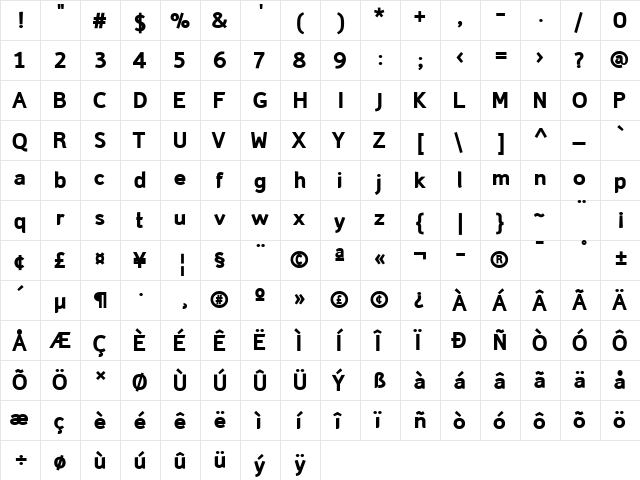
Domestos98 BlacK
Design Context for Domestos98 Typeface
Domestos98 offers clean, dependable letterforms without strong stylistic allegiance, making it a practical choice for designers who need flexibility.